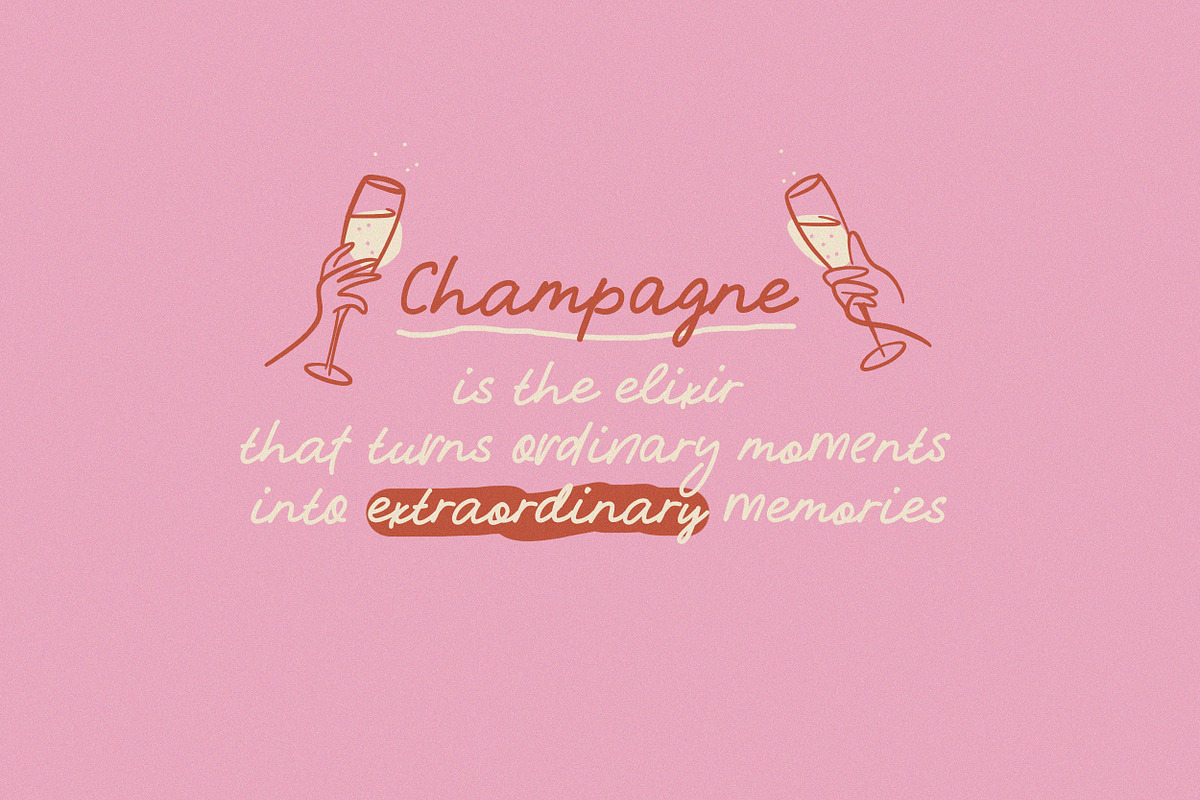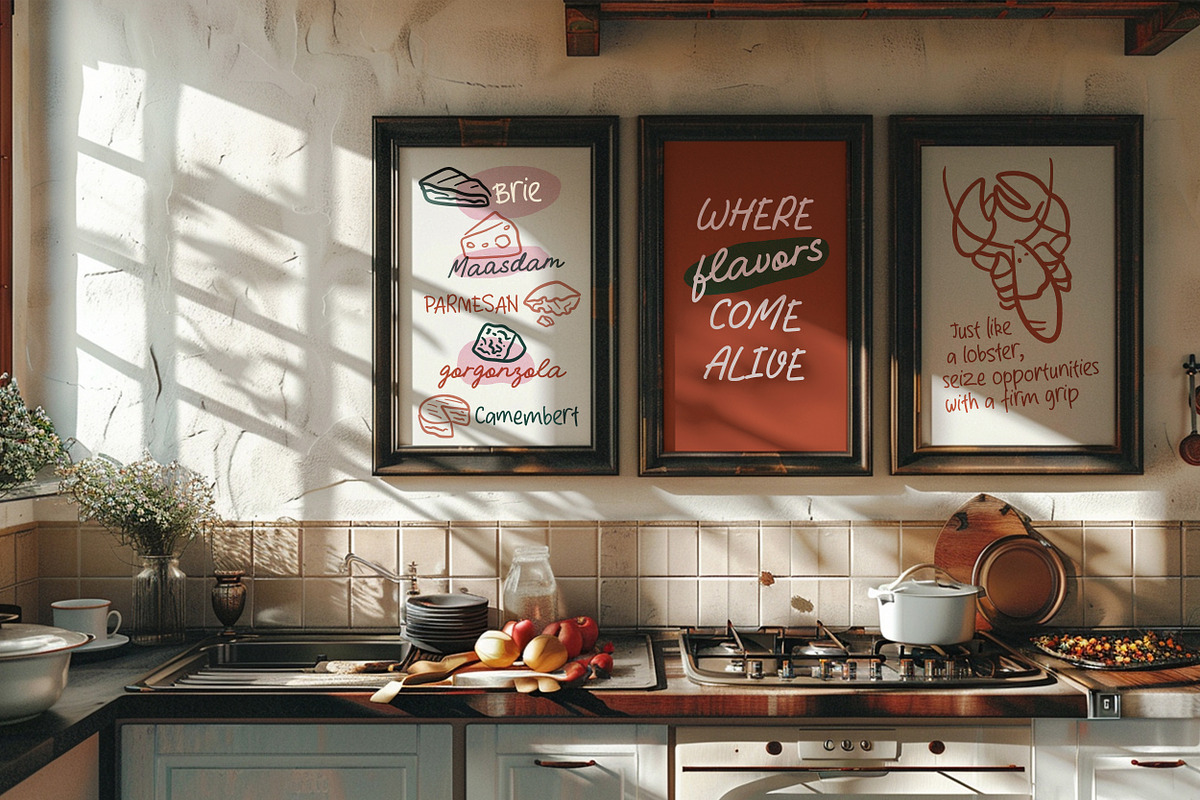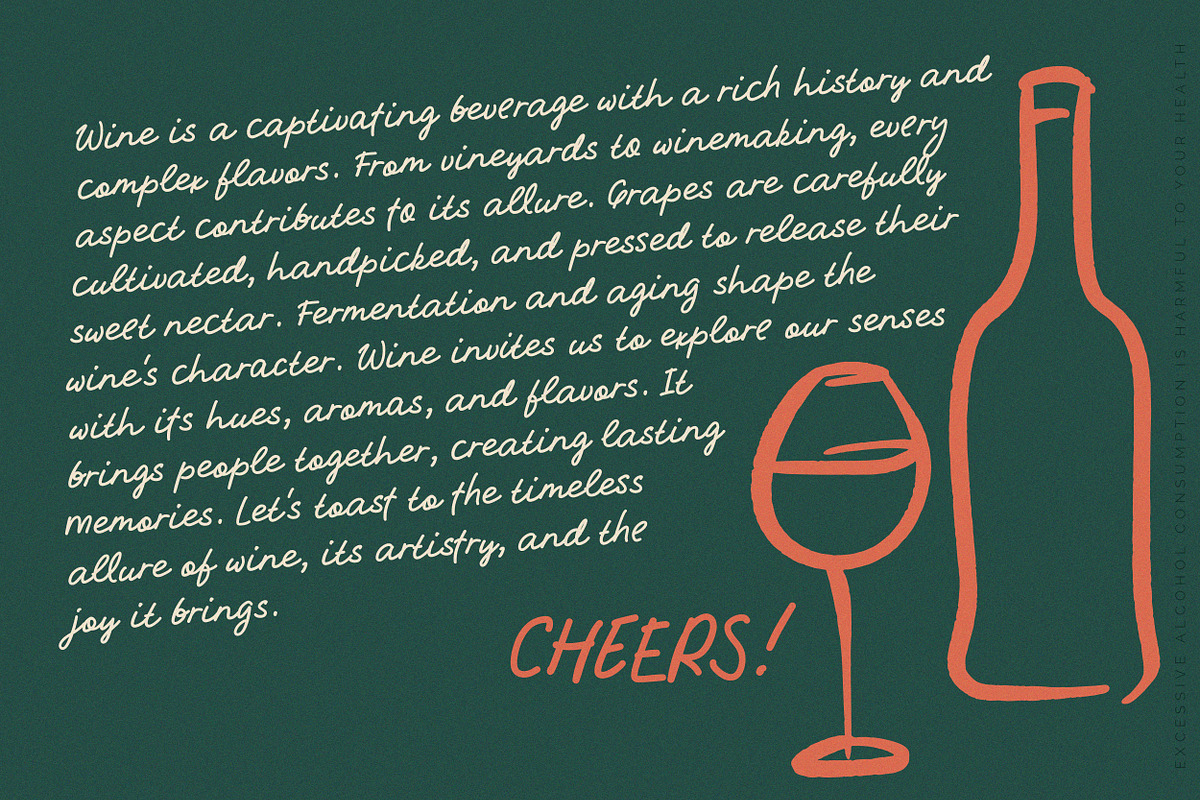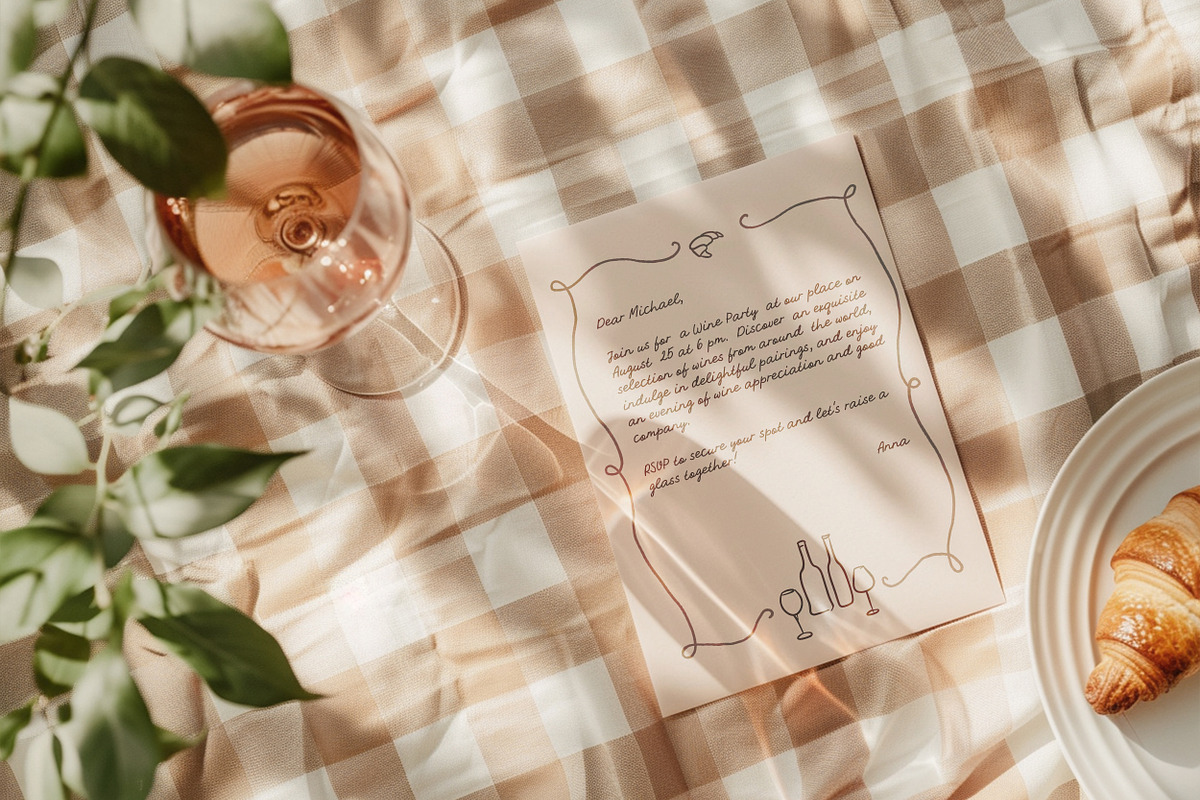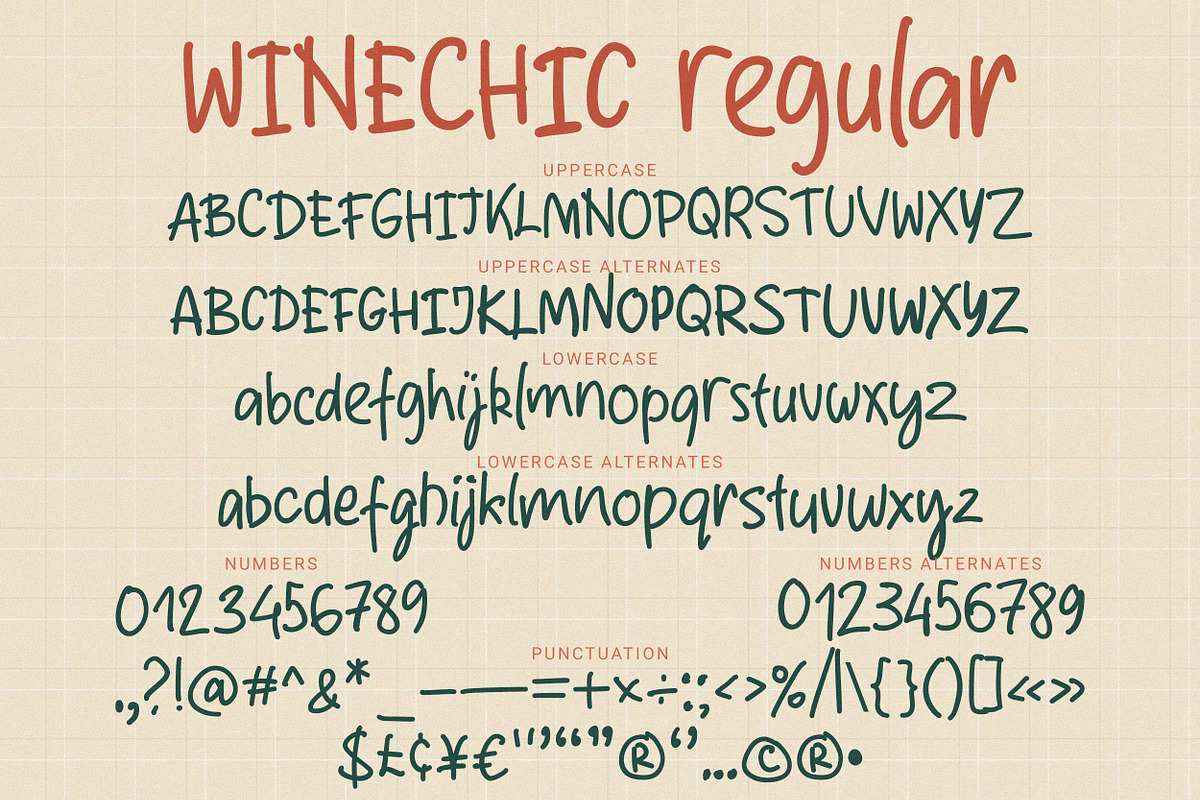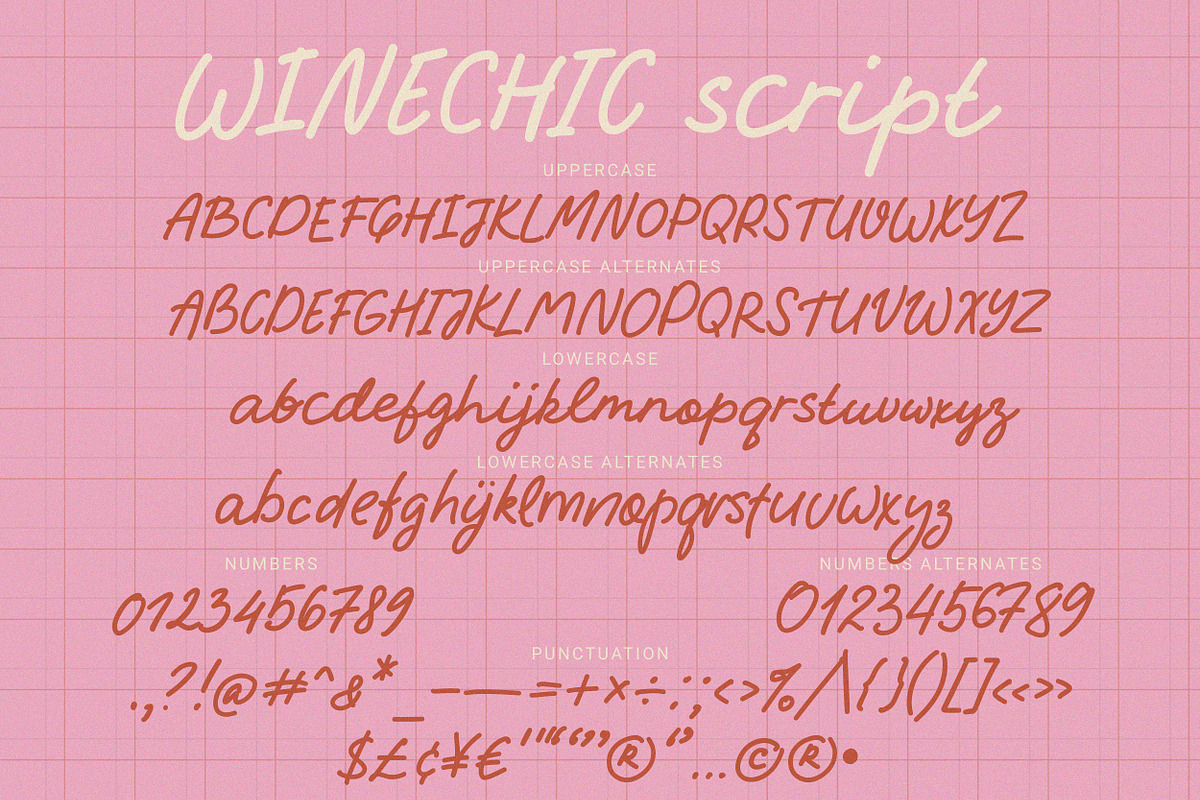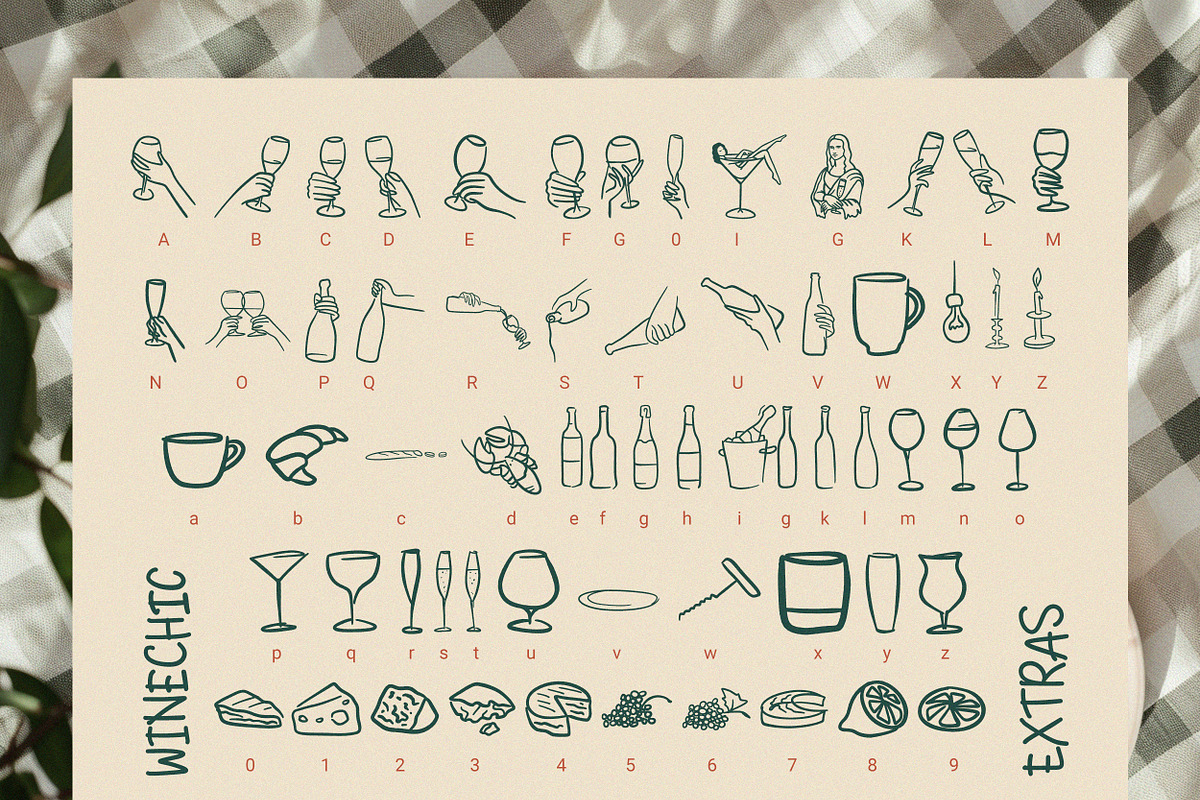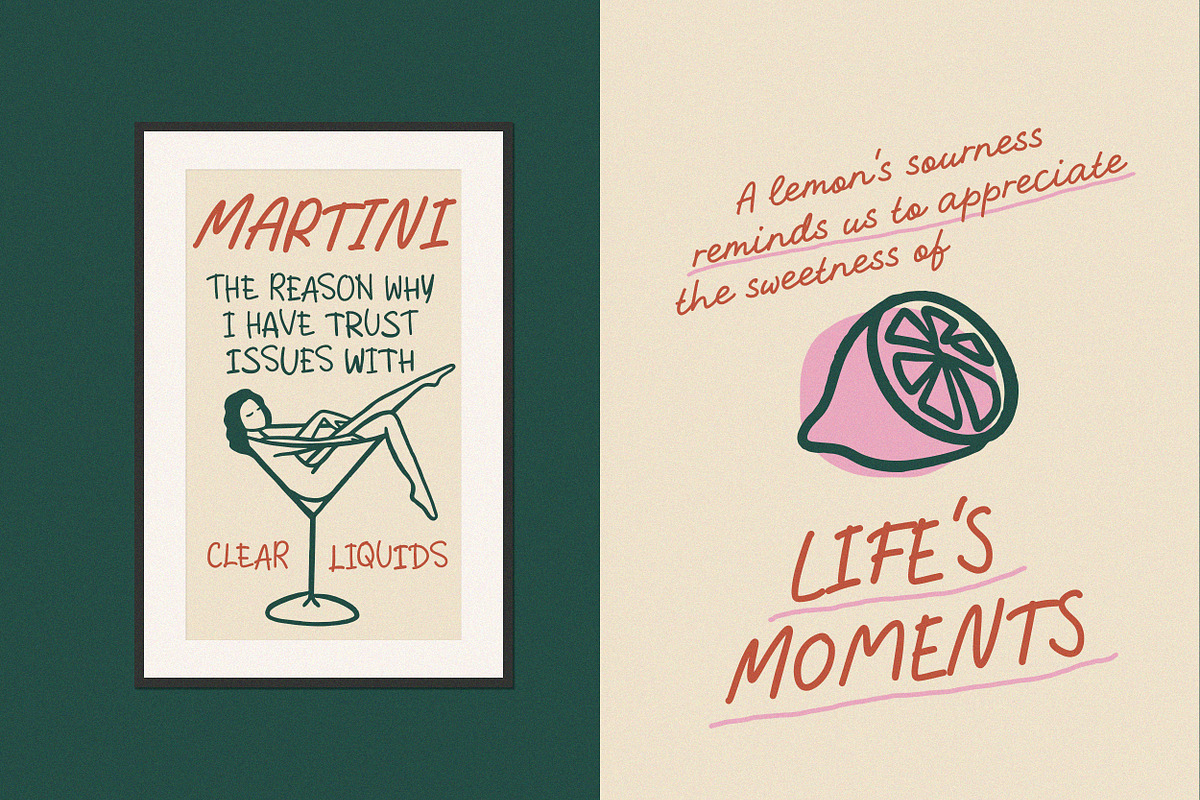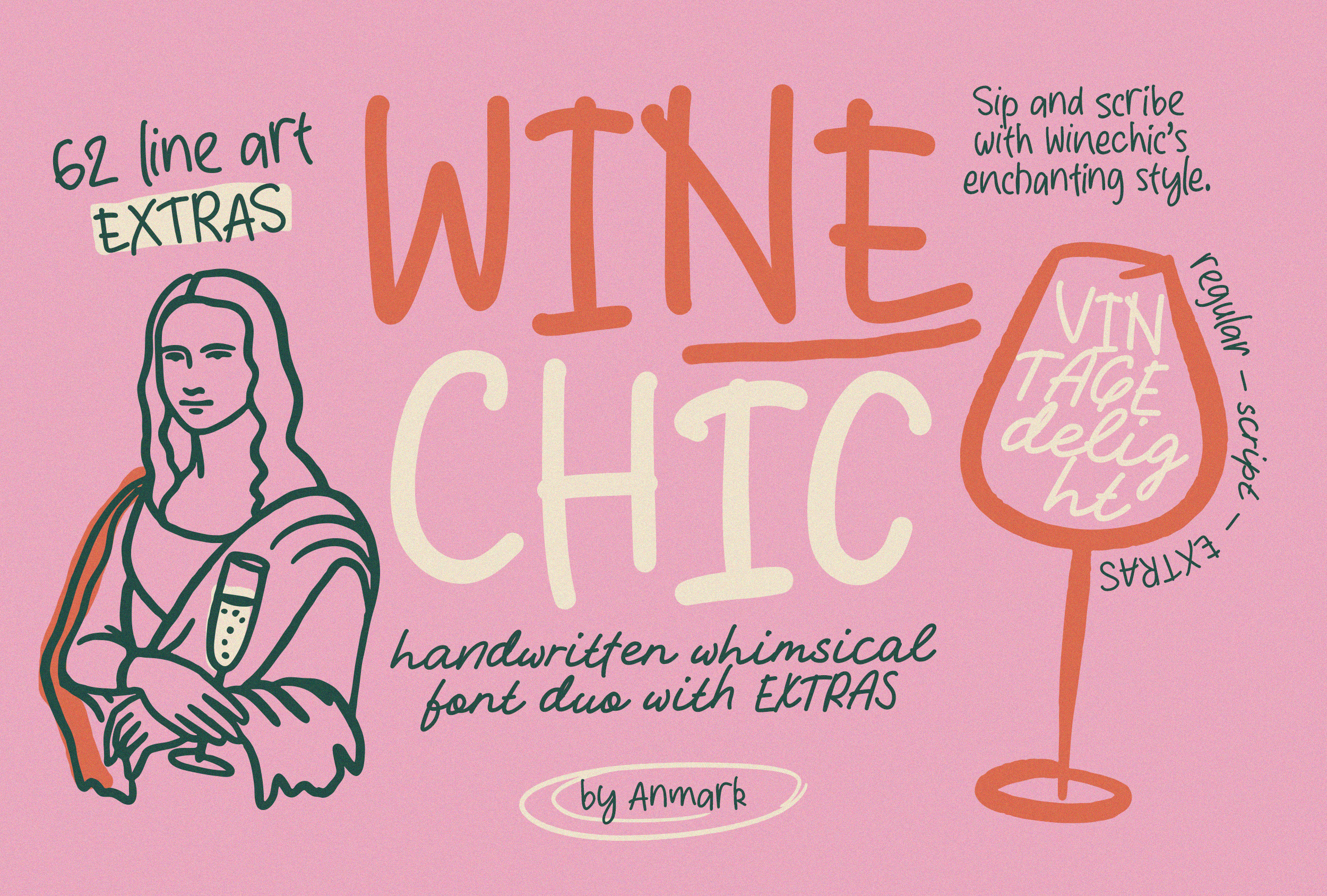
WineChic | Handwriting font | Extras
Introducing Winechic Font: a delightfully simple, handwritten typeface with a touch of French chic and wine inspiration.
Immerse yourself in the elegance of Winechic Font, a charming handwritten typeface that effortlessly combines simplicity with a hint of French chic and wine-inspired flair. With three distinct variations - Regular, Script, and Extras - Winechic offers a versatile range of styles to bring a touch of sophistication to your designs.
Typefaces contain a full range of letter and number alternatives.
The Regular style of Winechic Font is a testament to the beauty of simplicity. With its clean and straightforward letterforms, it conveys a sense of effortless grace and understated charm. Whether you're designing invitations, logos, or packaging, the Regular style of Winechic Font adds a touch of refined elegance to any project.
The Script style of Winechic Font captures the essence of fluidity and handcrafted artistry. Its gentle curves and delicate strokes mimic the elegance of handwritten charm. Use the Script style to infuse your designs with a personal and intimate touch, perfect for wedding stationery, quotes, or any design that calls for a touch of romantic allure.
And then there's the Extras style, a delightful addition to the Winechic Font family. Packed with line art illustrations inspired by the world of wine, the Extras style adds a whimsical and artistic element to your designs. From grapevines and wine bottles to corkscrews and glasses, these illustrations bring a playful and wine-themed touch to your creative endeavors.
Winechic Font is a versatile choice for various design projects, whether you're aiming to evoke a sense of French sophistication, capture the essence of wine culture, or simply add a touch of elegance to your work. Its light and unassuming handwritten style allows your message to shine while subtly infusing your designs with a hint of refined simplicity.
Embrace the delightful charm and versatility of Winechic Font, and let your designs exude a sense of timeless beauty and effortless grace. Cheers to the fusion of French chic and wine-inspired allure!